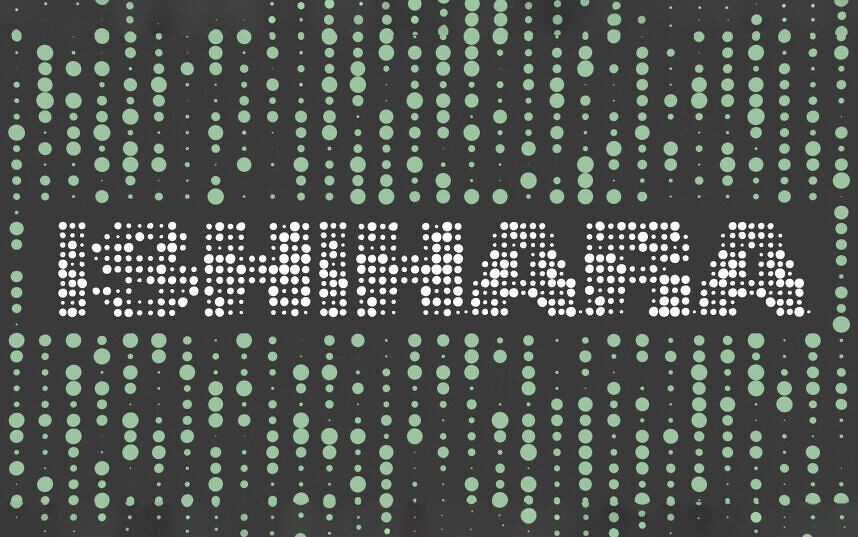
The Ishihara Font draws its inspiration from the iconic Ishihara color blindness test plates, transforming their distinctive dotted patterns and vibrant hues into a creative typographic design.
It’s best suited for use in large, attention-grabbing headlines or artistic displays where multiple colors can shine. This unique font adds a playful yet visually striking element to any design, evoking both nostalgia and creativity.